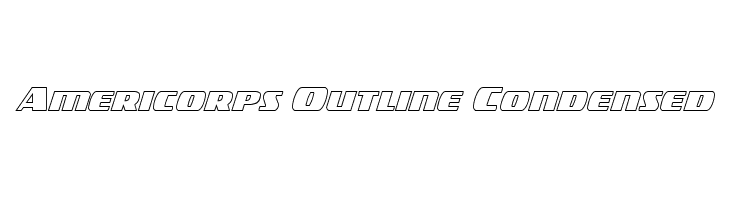
A bold, dynamic script font with fluid, energetic strokes.
A pixelated, retro font inspired by early digital graphics.
A bold, geometric font with angular shapes and creative cutouts.
A bold, modern sans-serif font with strong, uniform strokes.
A bold, blocky italic font with a dynamic, retro-inspired style.
A playful, casual handwritten font with smooth, flowing lines.
A bold, cursive script font with interconnected, flowing letterforms.
A bold, edgy font with sharp angles and a rebellious style.
A playful, textured font with a hand-drawn, sketch-like style.
A bold, retro 3D font with thick outlines and shadow effects.
设计师偏爱 Blankit, Pixelhaiz, Varieté Ikarier, Ziclose and Big Bad Blocks Italic,因为其造型干净、适用范围广—— 从品牌识别到落地页、海报都能胜任。